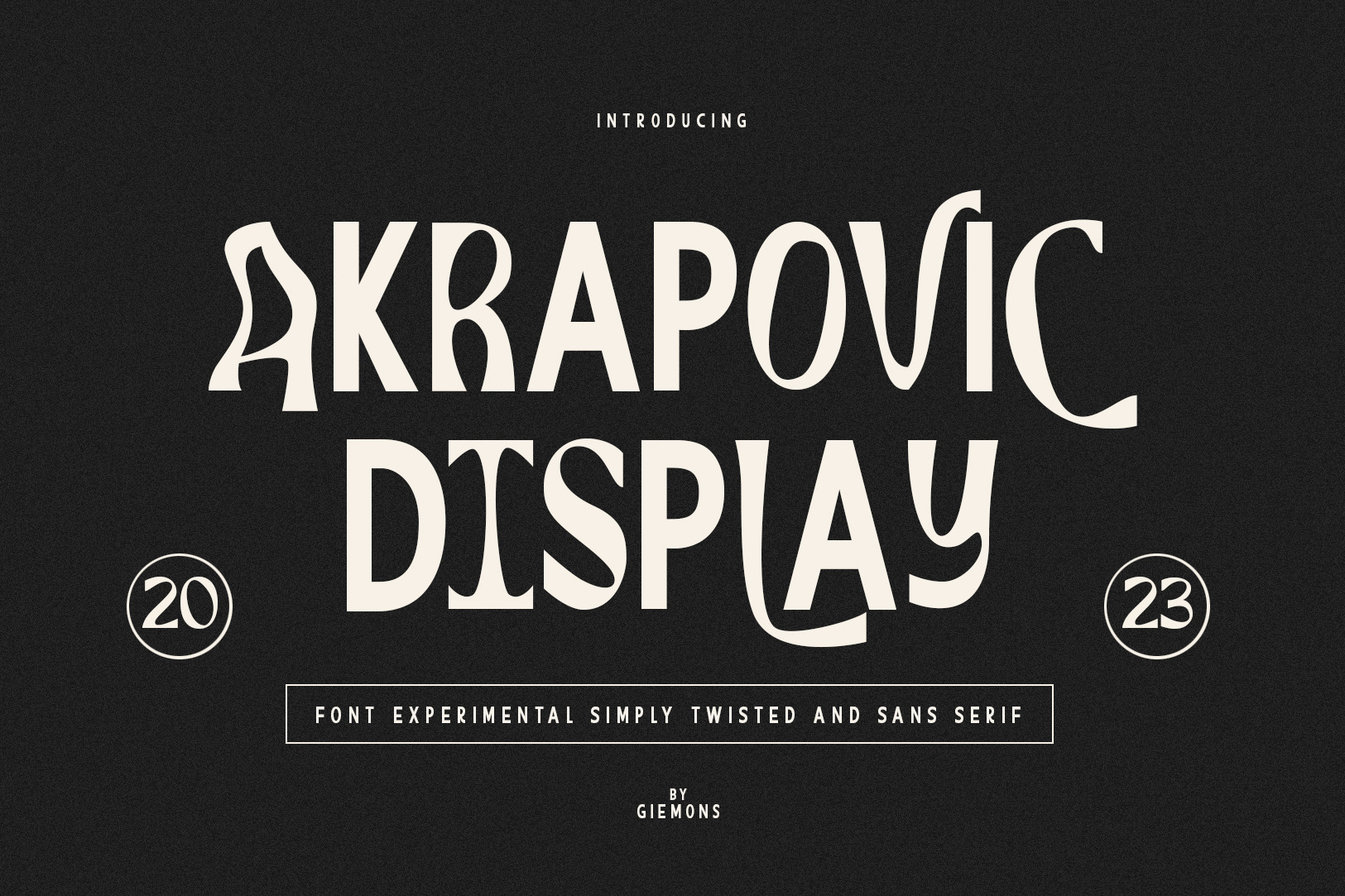
Akrapovic Font - Display
a Akrapovic Display Font is experimental twisted and sans serif. You can arrange each of the characters uppercase alternates stylistic. Use for awsome logos, headlines, posters, branding, book cover and many more.